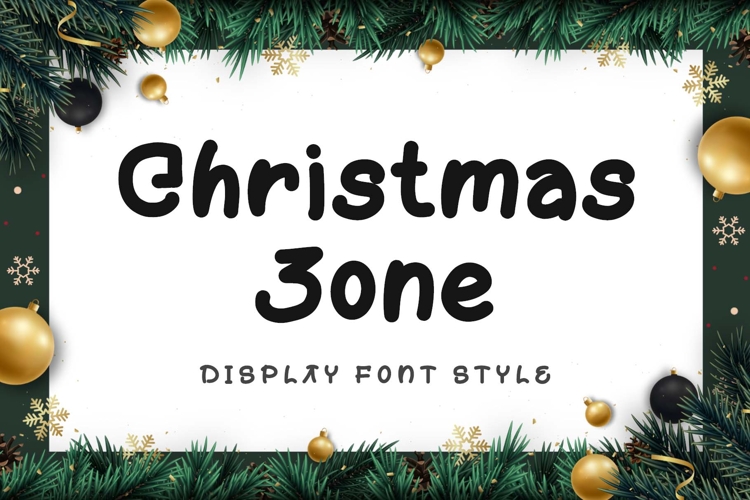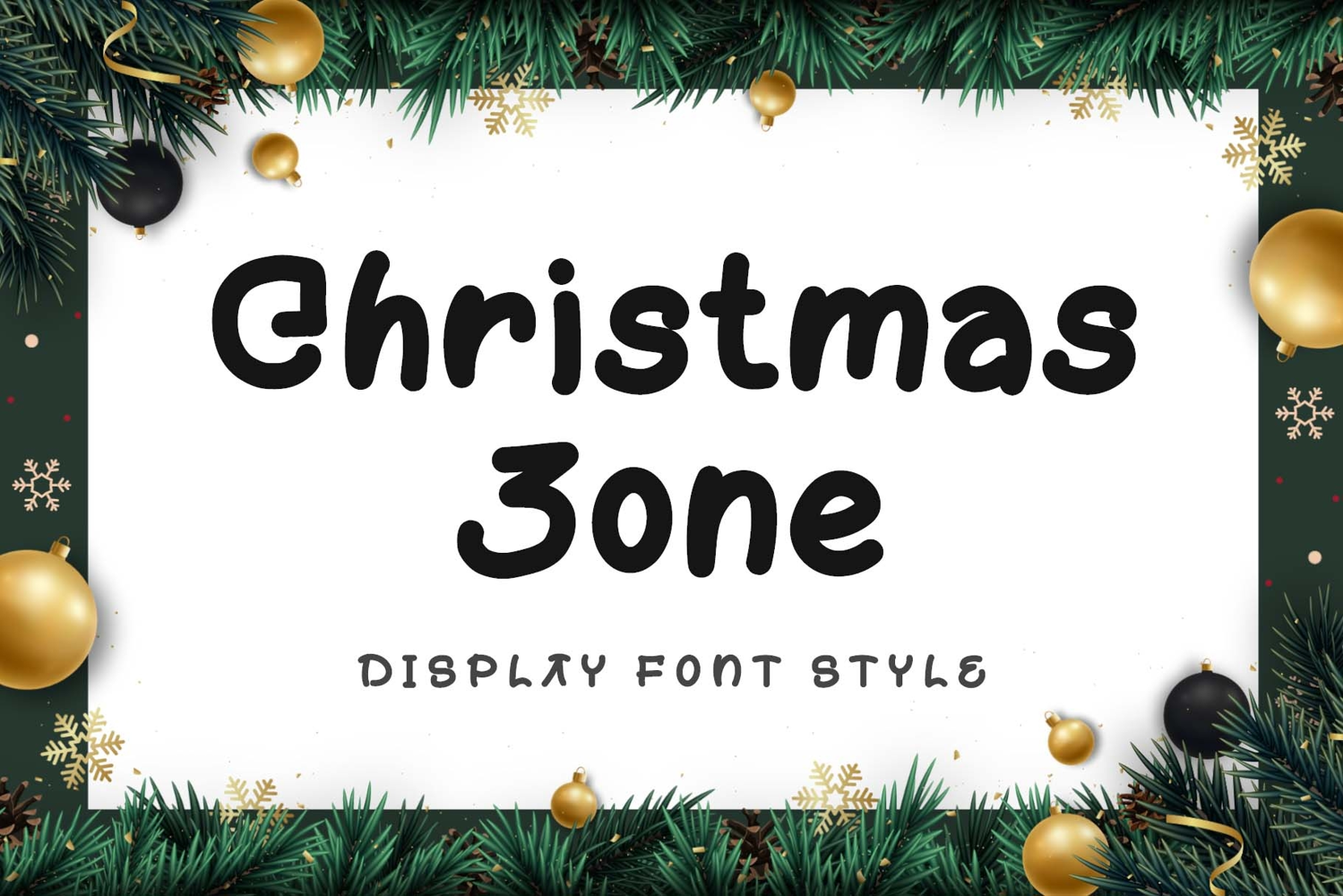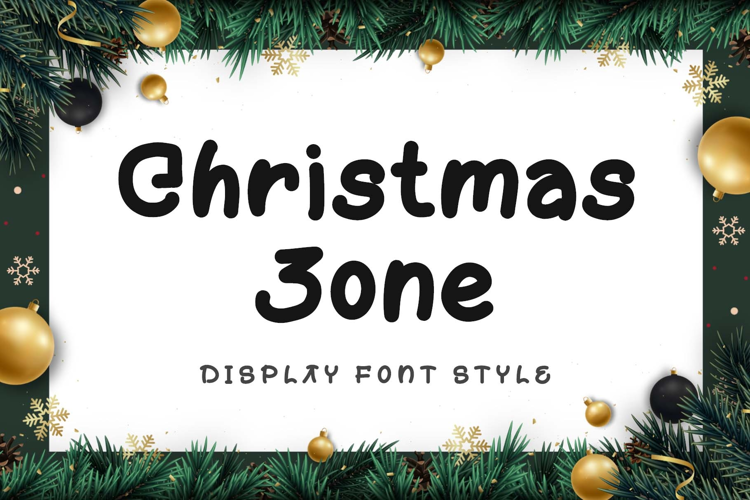
"Christmas Zone" is a unique and playful display font. It features uppercase and lowercase letters, numerals, punctuations, and multilingual support. It's perfect for Christmas, invitations, birthdays, holidays, vacations, prints, banners, logos, stickers, Halloween, comics, Procreate, sublimation, stickers, and posters.